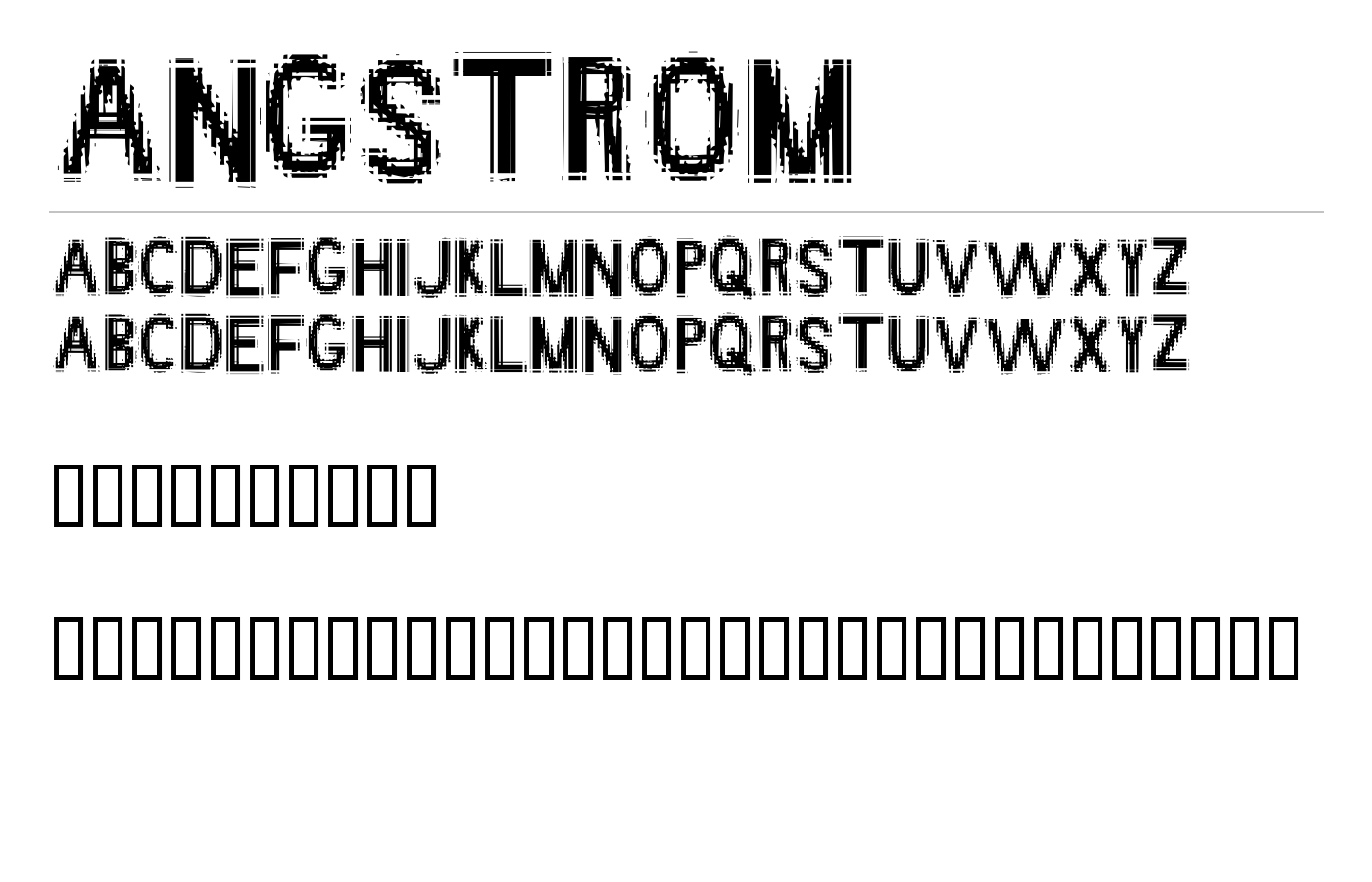
Angstrom is a bold, condensed sans serif font with a distinct digital glitch effect that gives it a dynamic, modern, and tech-inspired personality. Its tall, narrow letterforms with sharp edges and fragmented details make it ideal for eye-catching headlines, posters, and branding projects seeking a futuristic, edgy aesthetic. This font works well in creative design contexts where a strong, unconventional statement is desired.
Angstrom Font
About Angstrom Font